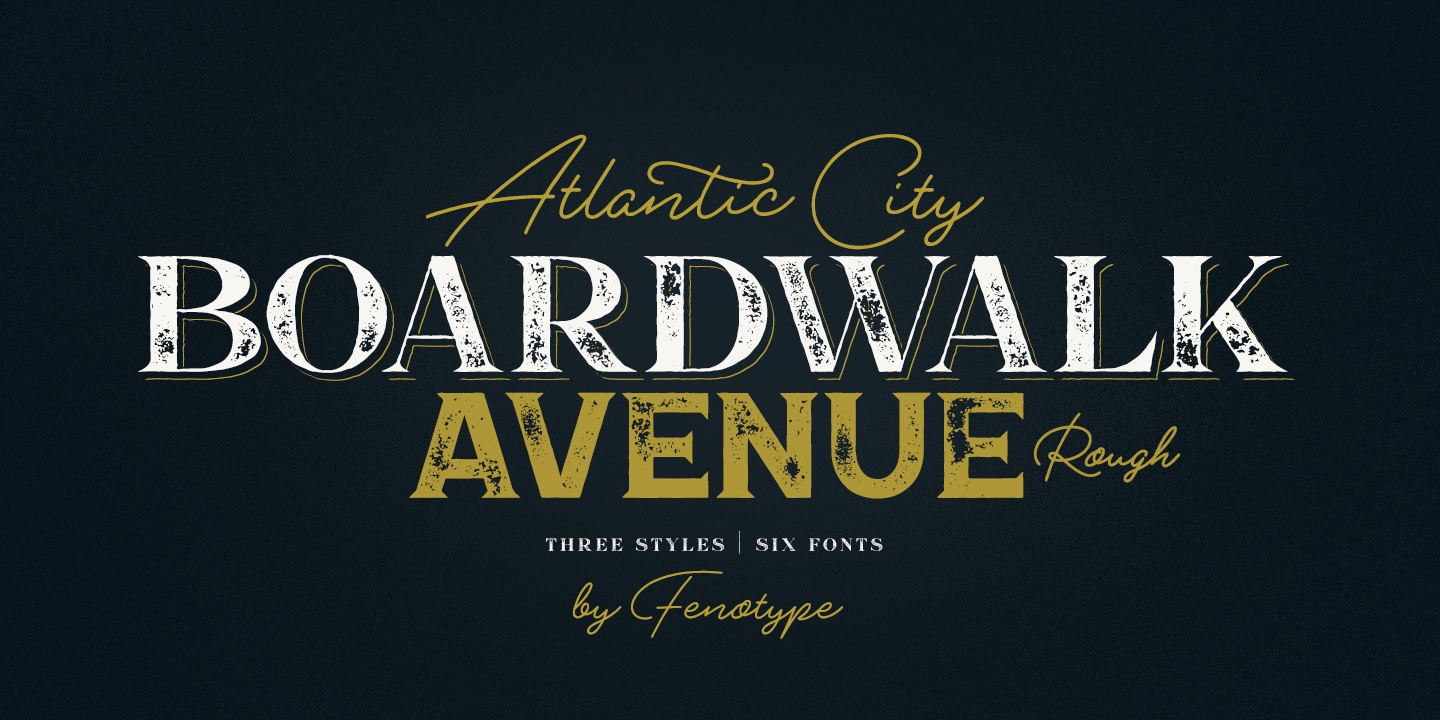
This weathered font is perfect for seaside resort branding, vintage carnival promotions, beachfront restaurant signage, nostalgic summer campaigns, coastal tourism materials, retro amusement park graphics, pier entertainment venues, and authentic americana design projects. Its distressed character makes it ideal for projects requiring seaside nostalgia and vintage boardwalk charm.
Boardwalk Avenue Rough Font is exciting because it captures the sun-bleached authenticity of classic American boardwalks with letterforms that appear weathered by ocean spray and aged by countless summer seasons. The font features realistic texture, vintage wear patterns, and nostalgic distressing that evokes memories of carnival games, salt water taffy, and endless summer evenings. Its authentic americana character instantly transports viewers to the golden age of seaside entertainment.
The Boardwalk Avenue Rough Font family typically includes multiple distressed variations and weathering levels, along with vintage decorative elements, carnival symbols, and seaside ornaments. Many versions feature alternate characters with different aging effects and special glyphs that enhance the nostalgic boardwalk atmosphere.
Whether you're creating coastal tourism brands, vintage entertainment venues, or nostalgic americana campaigns, Boardwalk Avenue Rough Font Free Download provides authentic seaside heritage with professional craftsmanship. This typeface transforms ordinary communications into nostalgic experiences that resonate with audiences who cherish memories of classic American summers and timeless boardwalk traditions. Its distinctive character adds immediate coastal credibility while celebrating the enduring appeal of Boardwalk Avenue Rough Font Free Download and the magical atmosphere of vintage seaside entertainment.